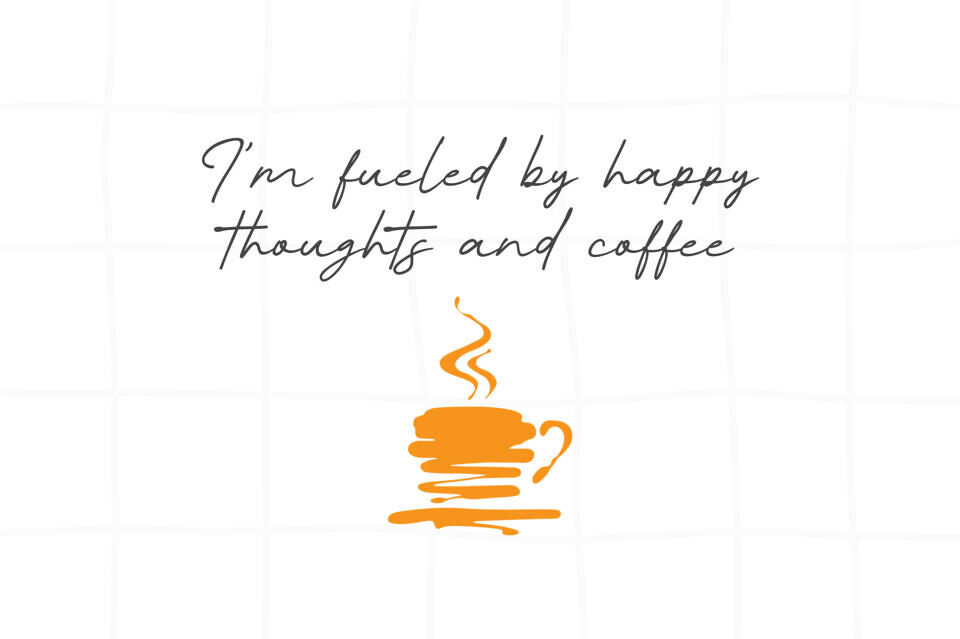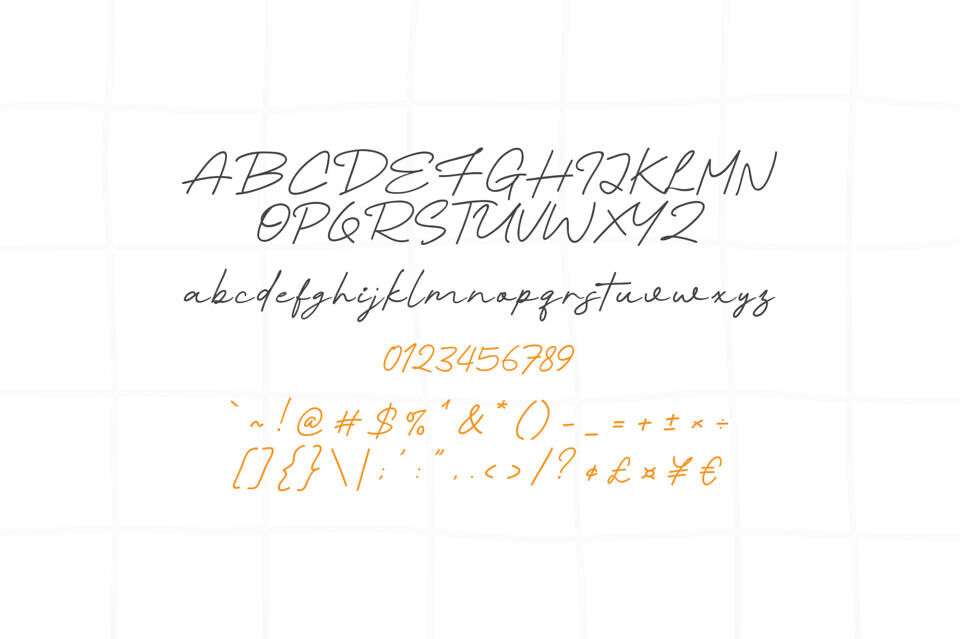
High Empathy is a modern and cute script font perfect for posters, logos, magazines, book covers, banners, and many more! Get this amazing font, and use it to create lovely designs.